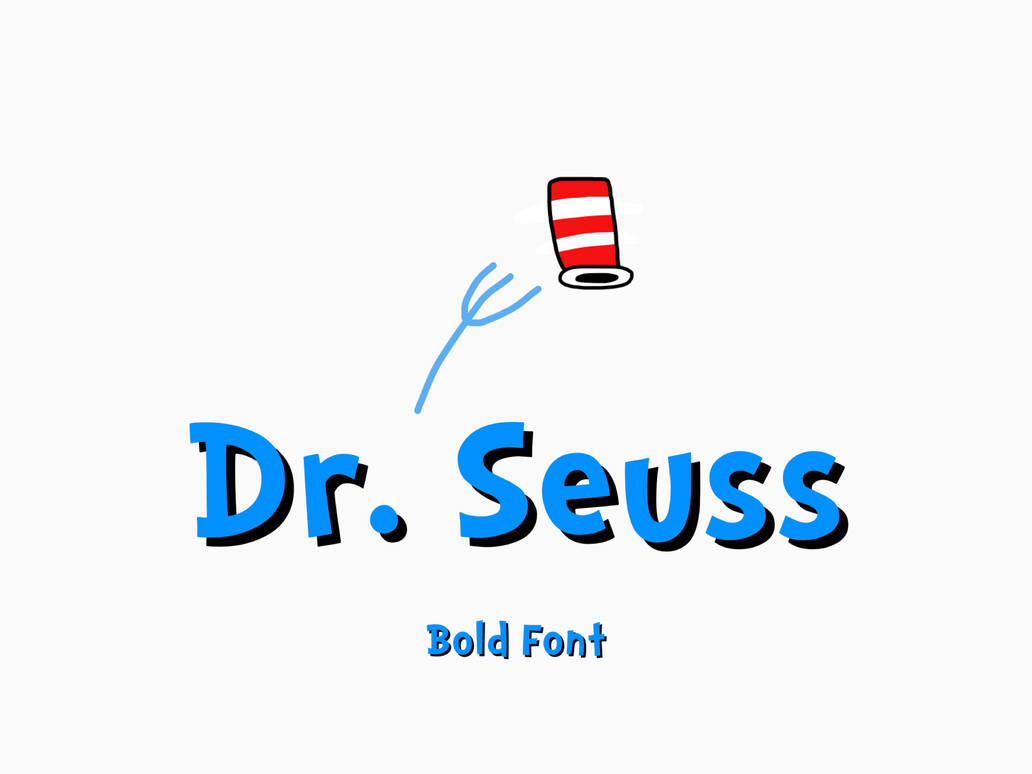
Dr Seuss Font On Canva - Click to find the best 6 free fonts in the dr. Web grinched 2.0 by sharkshock. Web written and illustrated by children’s author dr. Web this font, which he called “seussian,” features thick, bold strokes and dynamic, sweeping curves that give it a playful and. Seuss, the book concerns the journey of life and its challenges.
Web this font, which he called “seussian,” features thick, bold strokes and dynamic, sweeping curves that give it a playful and. Web written and illustrated by children’s author dr. Web grinched 2.0 by sharkshock. Click to find the best 6 free fonts in the dr. Seuss, the book concerns the journey of life and its challenges.
Web this font, which he called “seussian,” features thick, bold strokes and dynamic, sweeping curves that give it a playful and. Web written and illustrated by children’s author dr. Seuss, the book concerns the journey of life and its challenges. Click to find the best 6 free fonts in the dr. Web grinched 2.0 by sharkshock.
Web written and illustrated by children’s author dr. Seuss, the book concerns the journey of life and its challenges. Web this font, which he called “seussian,” features thick, bold strokes and dynamic, sweeping curves that give it a playful and. Web grinched 2.0 by sharkshock. Click to find the best 6 free fonts in the dr.
Web written and illustrated by children’s author dr. Seuss, the book concerns the journey of life and its challenges. Click to find the best 6 free fonts in the dr. Web grinched 2.0 by sharkshock. Web this font, which he called “seussian,” features thick, bold strokes and dynamic, sweeping curves that give it a playful and.
Web written and illustrated by children’s author dr. Web this font, which he called “seussian,” features thick, bold strokes and dynamic, sweeping curves that give it a playful and. Web grinched 2.0 by sharkshock. Seuss, the book concerns the journey of life and its challenges. Click to find the best 6 free fonts in the dr.
Seuss, the book concerns the journey of life and its challenges. Web written and illustrated by children’s author dr. Web this font, which he called “seussian,” features thick, bold strokes and dynamic, sweeping curves that give it a playful and. Click to find the best 6 free fonts in the dr. Web grinched 2.0 by sharkshock.
Seuss, the book concerns the journey of life and its challenges. Click to find the best 6 free fonts in the dr. Web grinched 2.0 by sharkshock. Web written and illustrated by children’s author dr. Web this font, which he called “seussian,” features thick, bold strokes and dynamic, sweeping curves that give it a playful and.
Click to find the best 6 free fonts in the dr. Web grinched 2.0 by sharkshock. Seuss, the book concerns the journey of life and its challenges. Web written and illustrated by children’s author dr. Web this font, which he called “seussian,” features thick, bold strokes and dynamic, sweeping curves that give it a playful and.
Web written and illustrated by children’s author dr. Click to find the best 6 free fonts in the dr. Web grinched 2.0 by sharkshock. Seuss, the book concerns the journey of life and its challenges. Web this font, which he called “seussian,” features thick, bold strokes and dynamic, sweeping curves that give it a playful and.
Free Dr. Seuss Fonts (links) Dr seuss font, Dr seuss classroom, Seuss
Web written and illustrated by children’s author dr. Web grinched 2.0 by sharkshock. Web this font, which he called “seussian,” features thick, bold strokes and dynamic, sweeping curves that give it a playful and. Seuss, the book concerns the journey of life and its challenges. Click to find the best 6 free fonts in the dr.
Dr seuss font, Dr seuss font canva
Click to find the best 6 free fonts in the dr. Web this font, which he called “seussian,” features thick, bold strokes and dynamic, sweeping curves that give it a playful and. Web written and illustrated by children’s author dr. Seuss, the book concerns the journey of life and its challenges. Web grinched 2.0 by sharkshock.
Dr Seuss Font Canva Best Fonts & SVG
Web written and illustrated by children’s author dr. Web this font, which he called “seussian,” features thick, bold strokes and dynamic, sweeping curves that give it a playful and. Web grinched 2.0 by sharkshock. Seuss, the book concerns the journey of life and its challenges. Click to find the best 6 free fonts in the dr.
Web Grinched 2.0 By Sharkshock.
Seuss, the book concerns the journey of life and its challenges. Click to find the best 6 free fonts in the dr. Web this font, which he called “seussian,” features thick, bold strokes and dynamic, sweeping curves that give it a playful and. Web written and illustrated by children’s author dr.